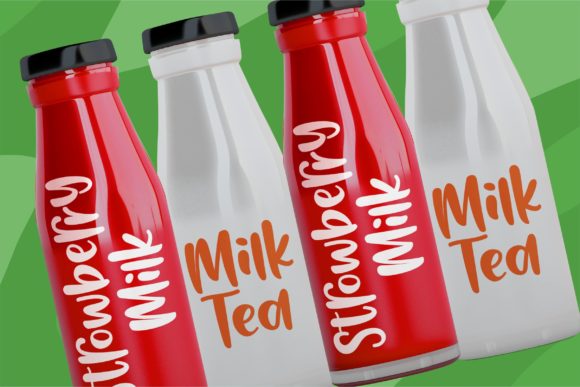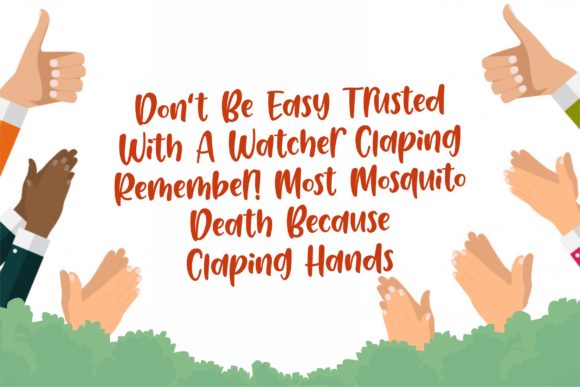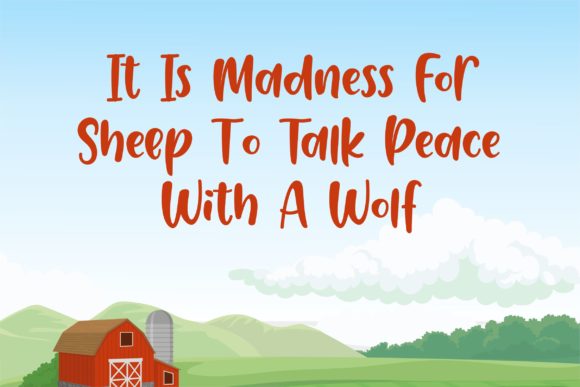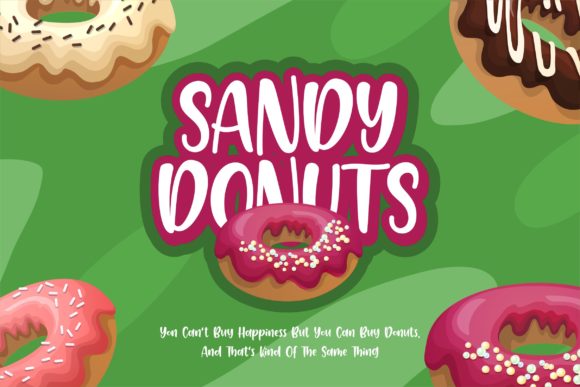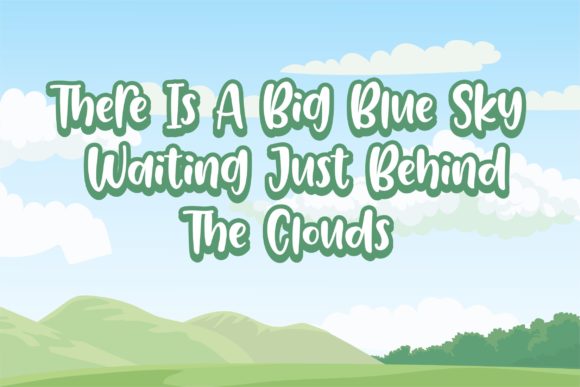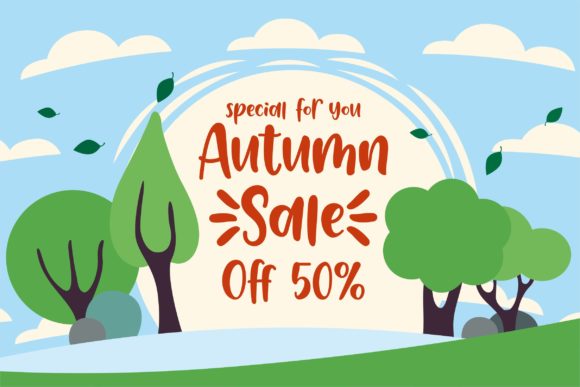
Introduction to Redmilk Font
Redmilk embodies fun, quirkiness and authenticity.
This enchanting handwritten font will turn any creative idea into a true standout Get inspired by its authentic feel and use it to create gorgeous wedding invitations, beautiful stationary art, eye-catching social media posts, and cute greeting cards.
Key Features of Redmilk Font
Why Choose Redmilk Font?
Redmilk Font offers exceptional quality and versatility, making it a valuable addition to your design toolkit. Whether you’re creating for personal projects or commercial use, Redmilk Font delivers professional results.